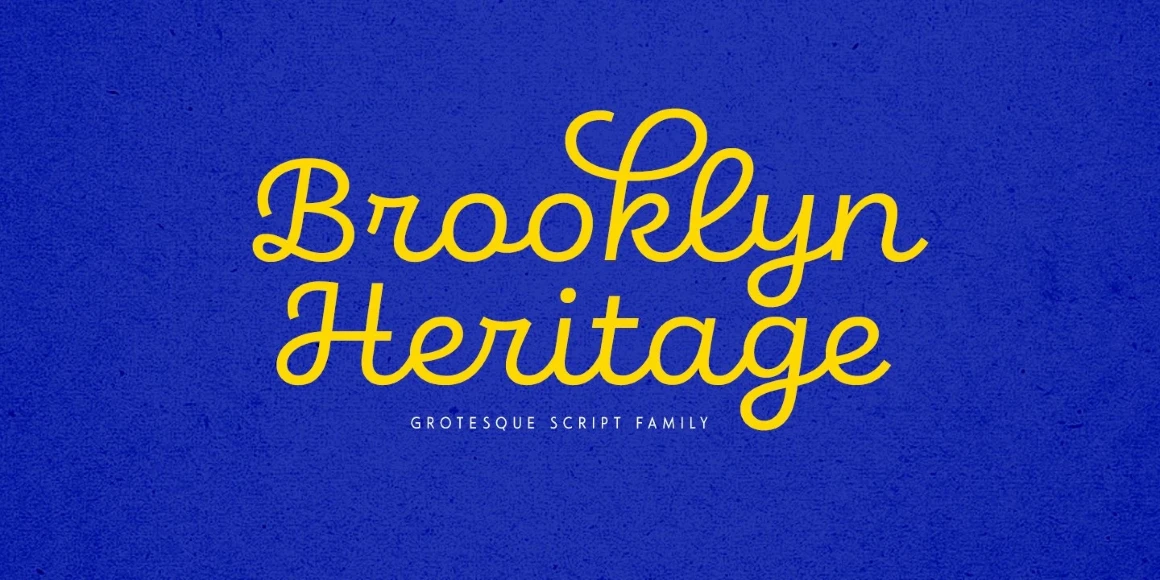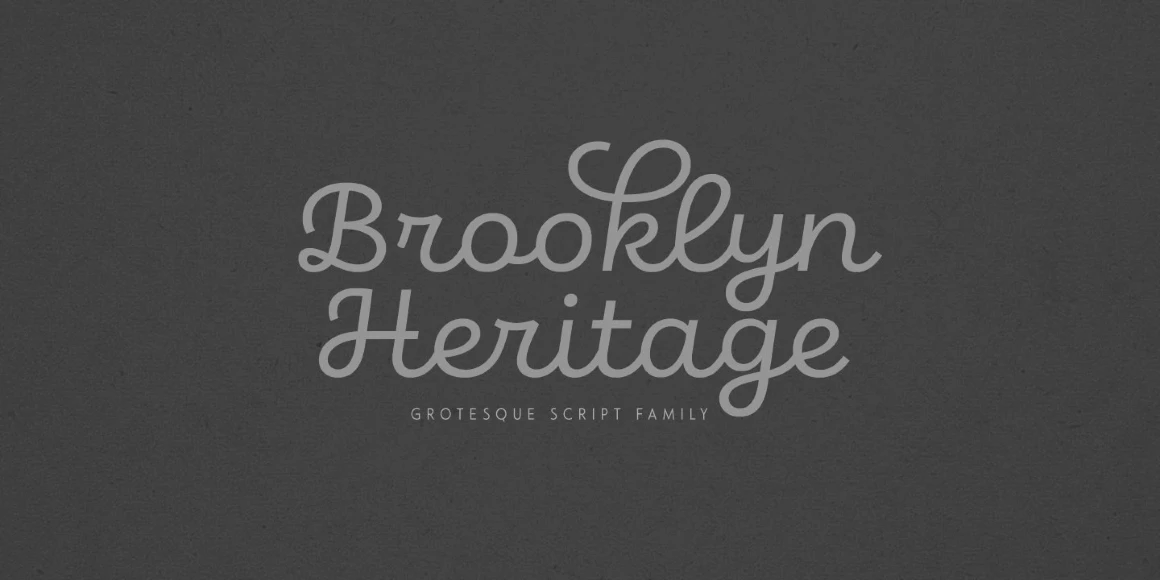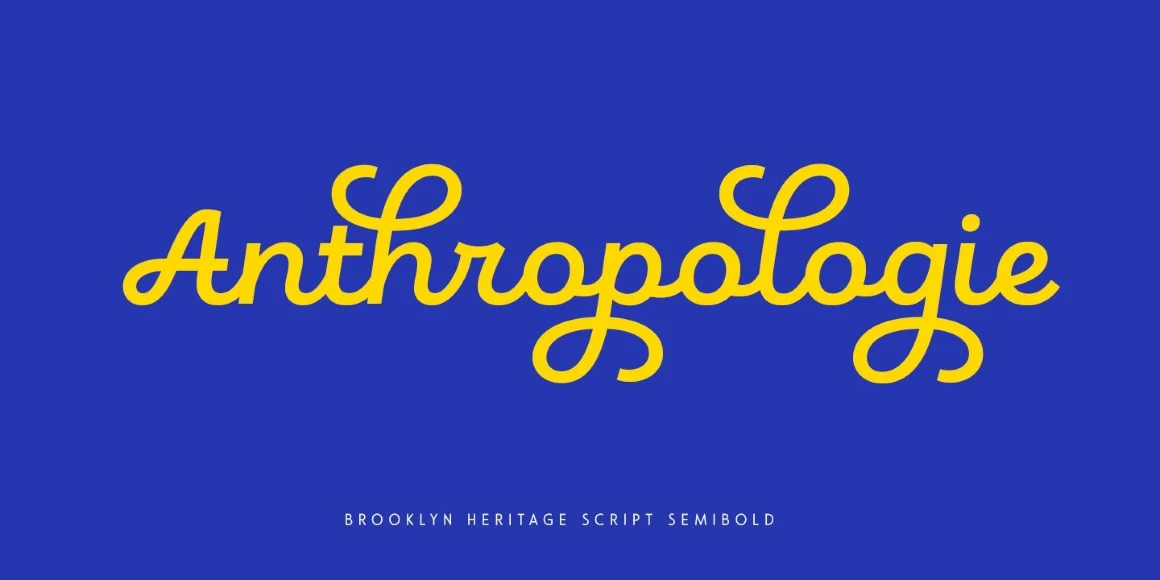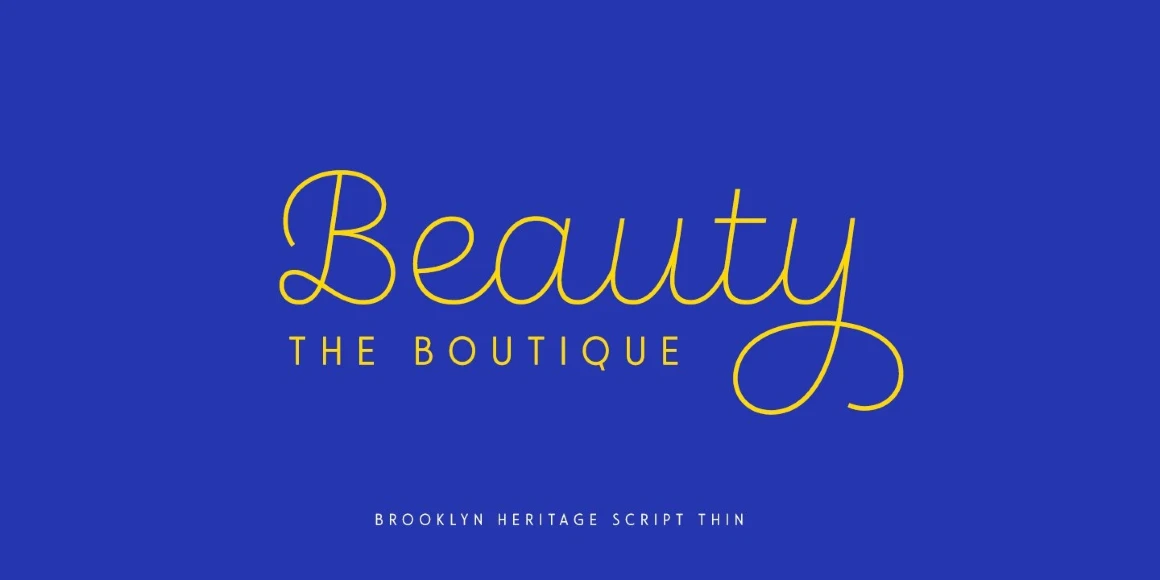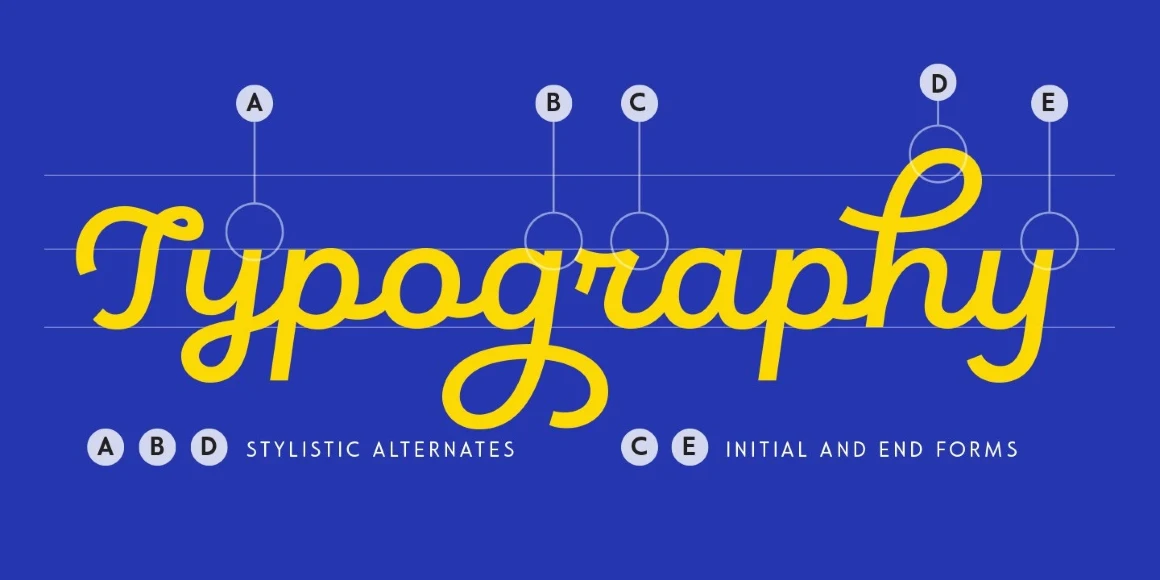
Brooklyn Heritage Script
From My Creative Land
Brooklyn Heritage Script is the joyous result of what happens when a grotesque typeface design wakes up and decides to become a playful, swashy script instead. With 500+ glyphs included, it supports most Western European languages and is full of stylistic alternates that make the script even prettier. Brooklyn Heritage Script is an exciting find for a designer looking for a great companion to evolve a customer’s branding, collateral, website, book series, social media, mobile app, or magazine.
Designed by Elena Genova